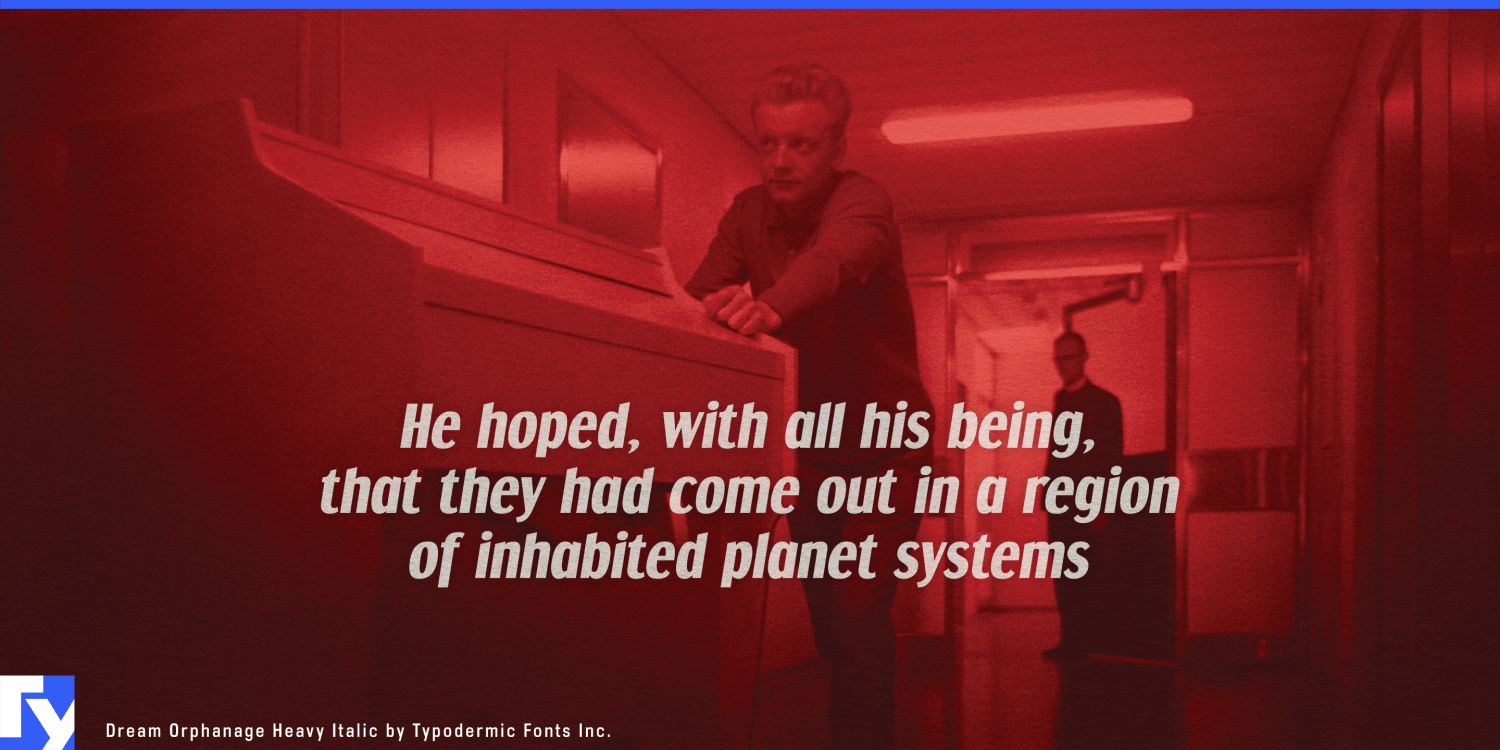
About Dream Orphanage
Dream Orphanage: The typeface that welcomes you home. This Typodermic Fonts creation is a warm embrace, a friendly smile, a cozy nook in the bustling world of typography. Born from the beloved 1990s Dream Orphans, Dream Orphanage is a meticulous reconstruction…